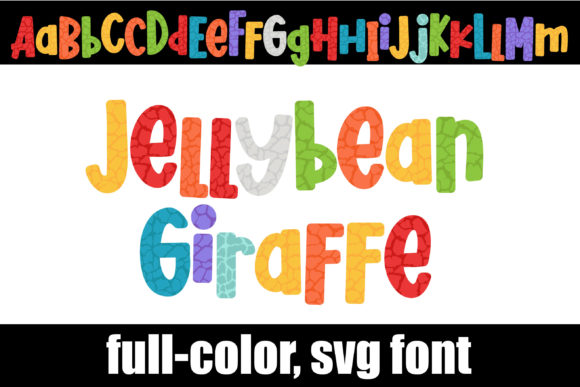
Looking for a fun and colorful font to add to your collection? Look no further than Jellybean Giraffe Font! Created by Illustration Ink, this font family is perfect for those looking to add a pop of color to their designs. With a giraffe print in a mixed jellybean color palette, this full-color alphabet is sure to catch the eye of anyone who sees it.
One of the standout features of Jellybean Giraffe Font is its versatility. It's the perfect choice for those looking for a font for Instagram that's full of color and personality. Plus, there's a second upper and lower alt case that you can access through your system's character map, giving you even more design options.
Overall, Jellybean Giraffe Font is the perfect addition to any font collection. It's colorful, versatile, and easy to install. Whether you're looking to create eye-catching social media posts, design personalized invitations, or add a touch of fun to your branding materials, this font family is sure to exceed your expectations.